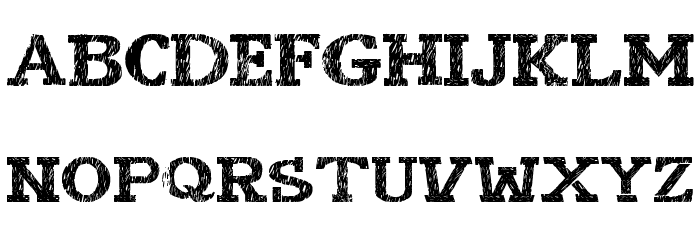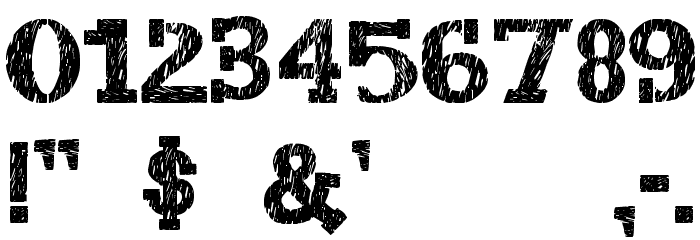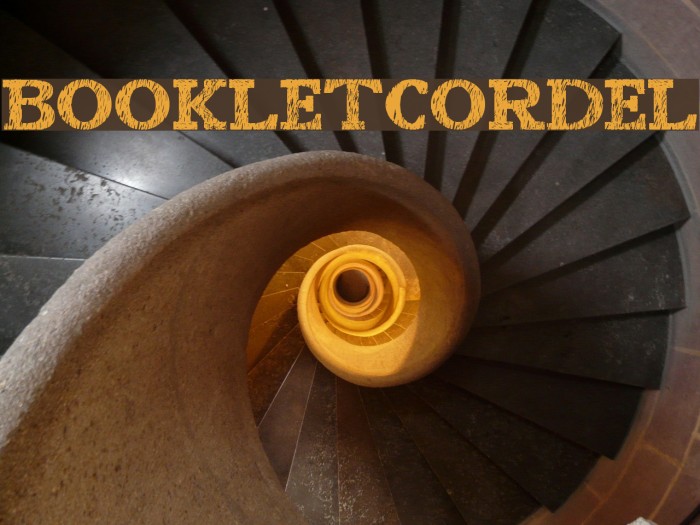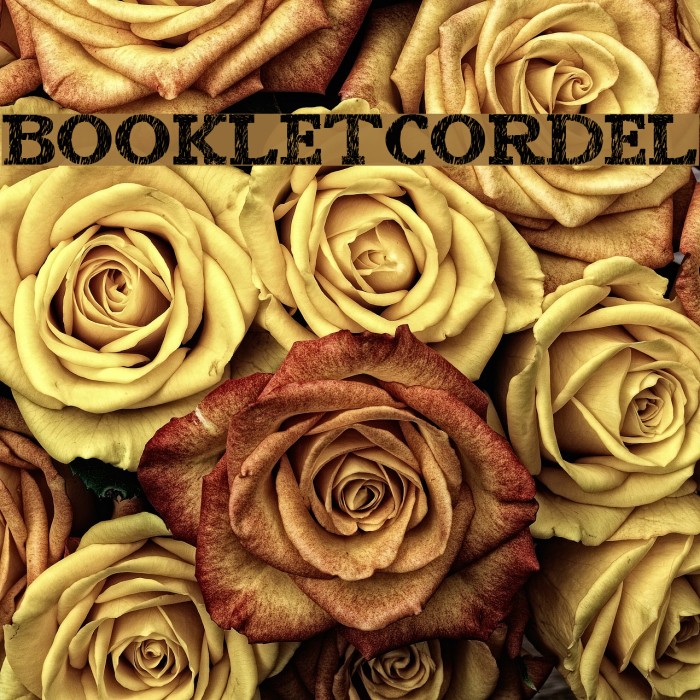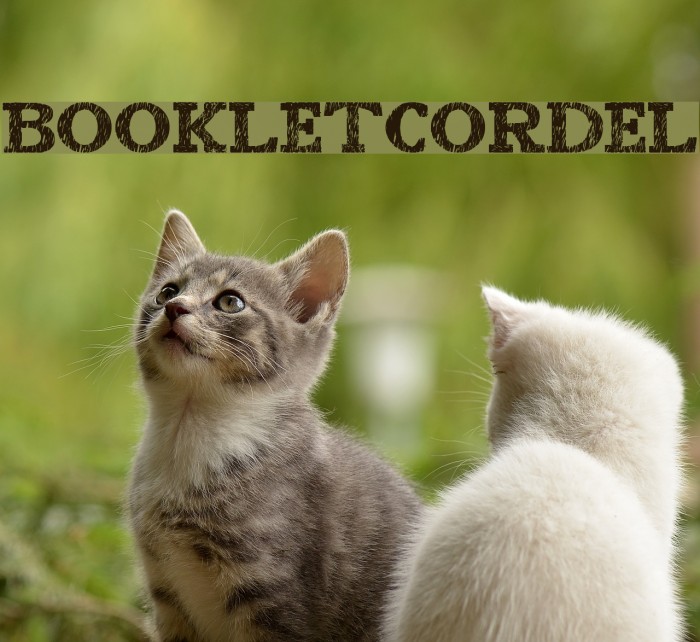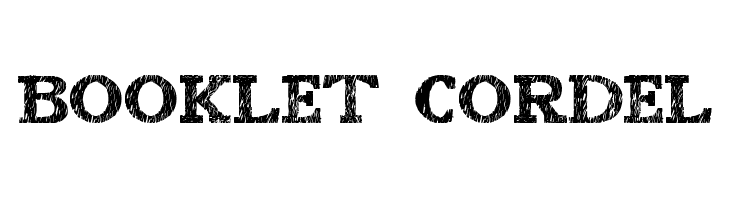
booklet Cordel Font
This font features a bold and textured appearance, reminiscent of traditional woodcut or linocut prints. The characters are robust and have a distressed, rough texture that adds a handcrafted feel. The uppercase letters are prominent and commanding, while the numbers and special characters maintain the same rugged style. This font's unique texture gives it a vintage and artisanal quality, making it stand out in any design project. The overall look is both bold and artistic, suitable for projects that require a touch of rustic charm.
A bold, textured font with a handcrafted, vintage appearance.
- Proposed Projects: Ideal for posters, book covers, branding projects, and any design requiring a rustic or artisanal touch.
- Overall Style: Vintage